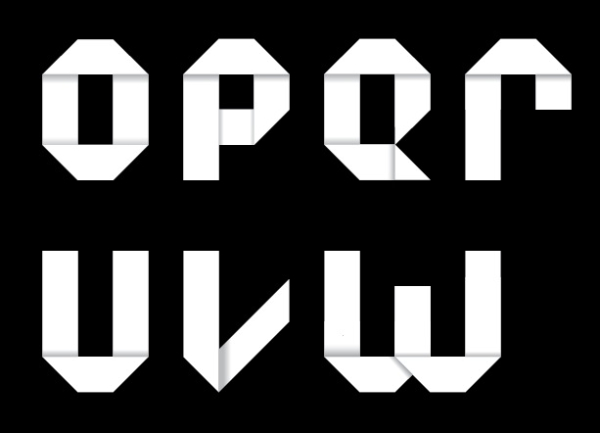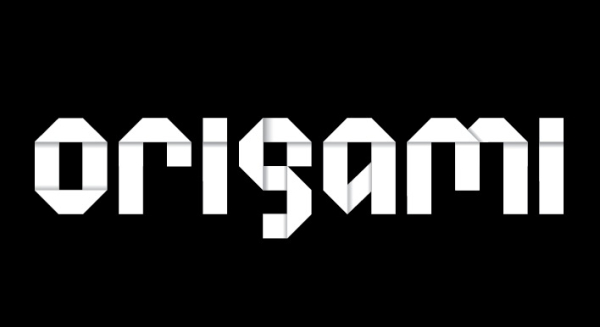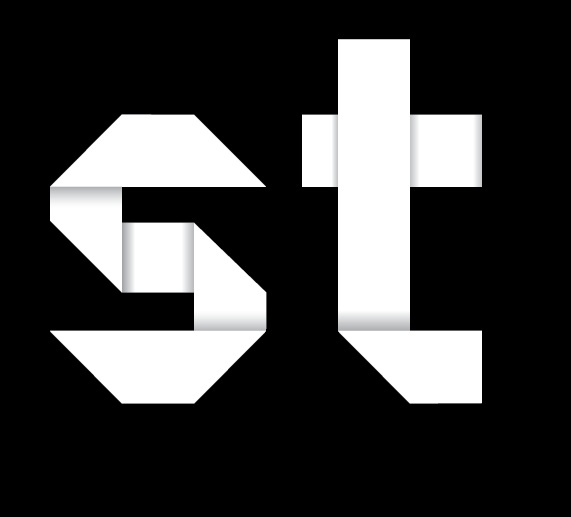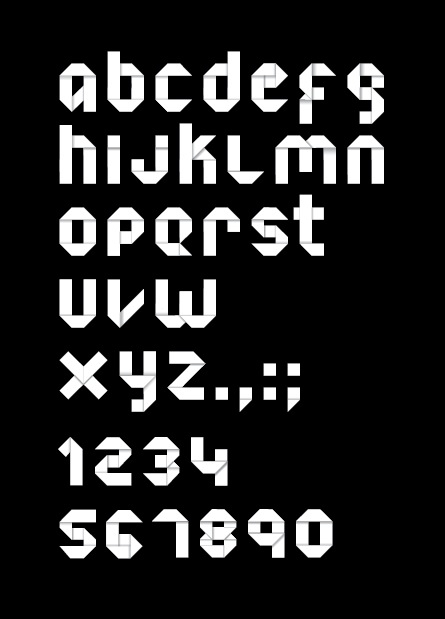
origami
inspired in origami, this font was created first in paper, then converted in vector.
Designer: Nicolas Alejandro Korenchuk
Publisher: Nicolas Alejandro Korenchuk